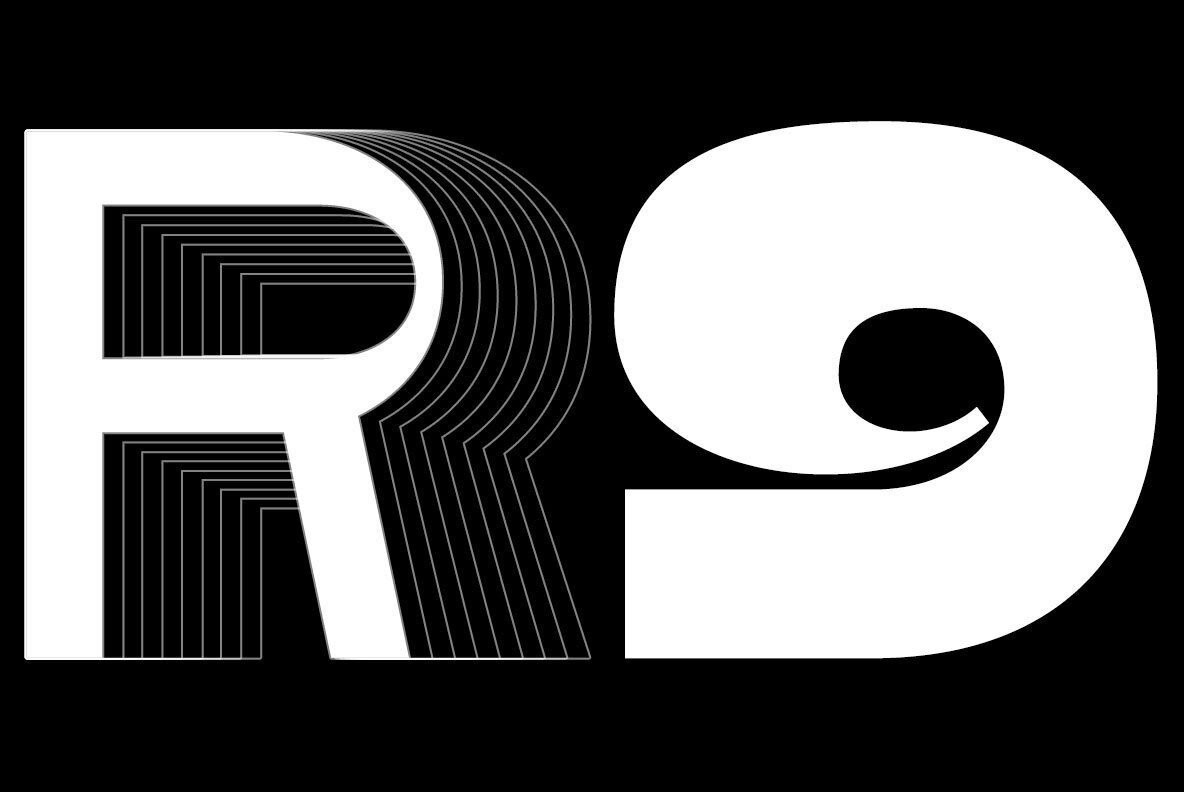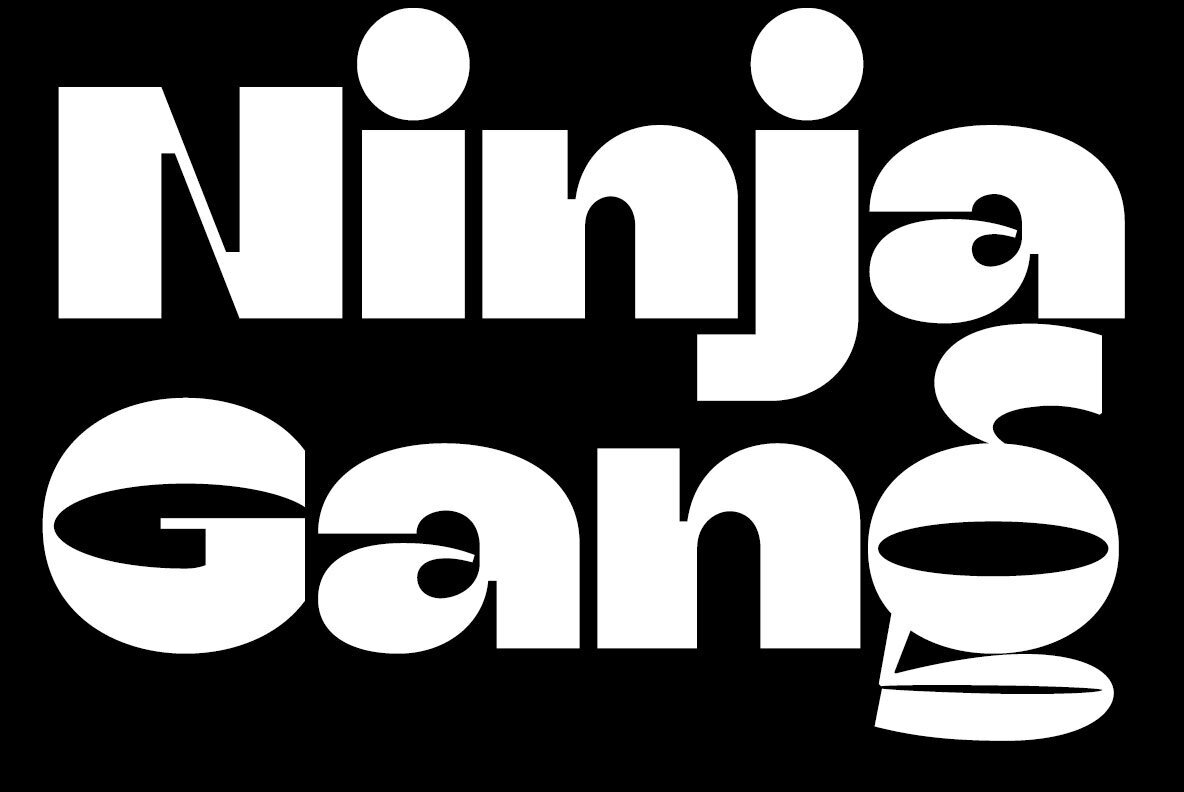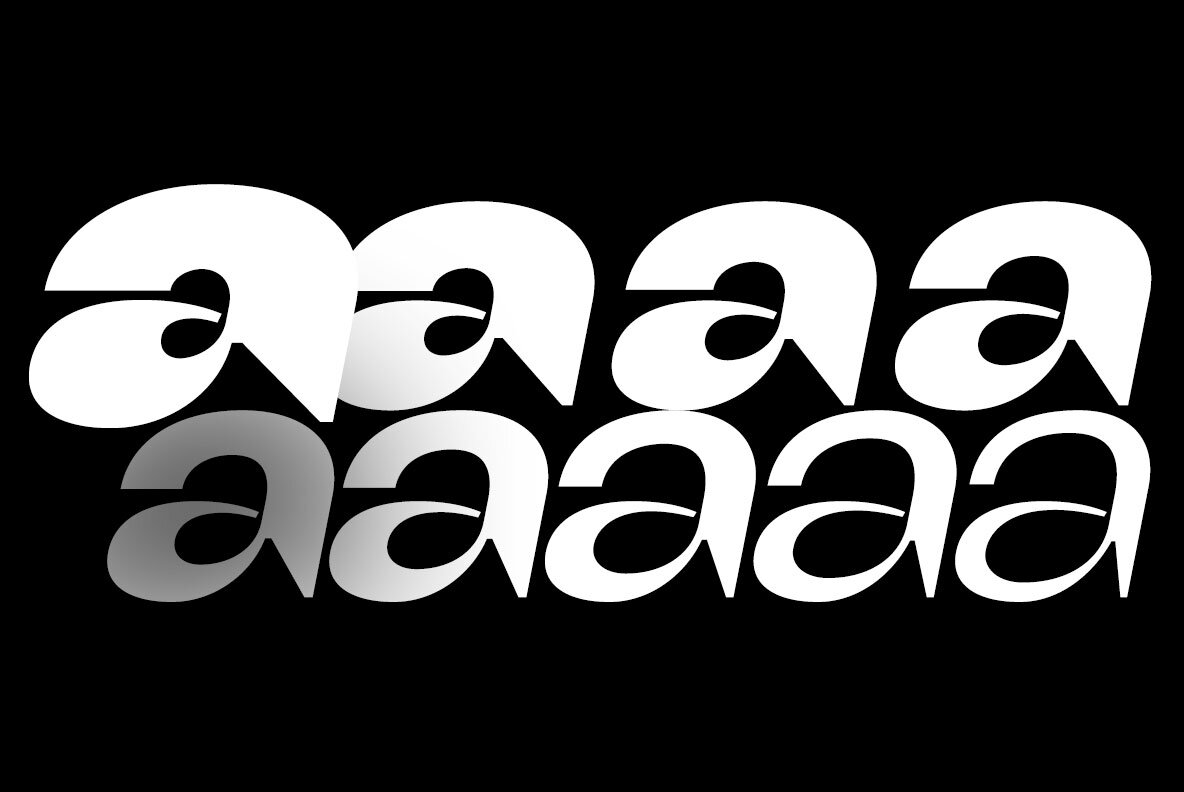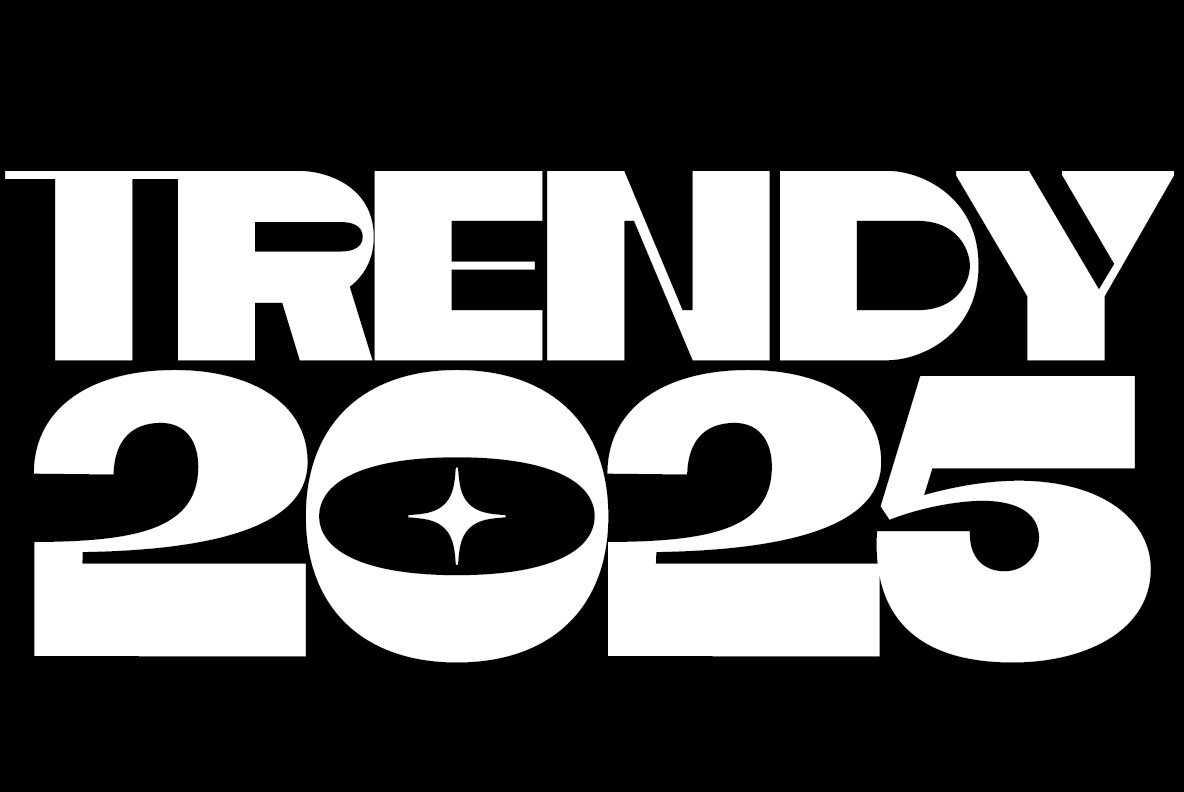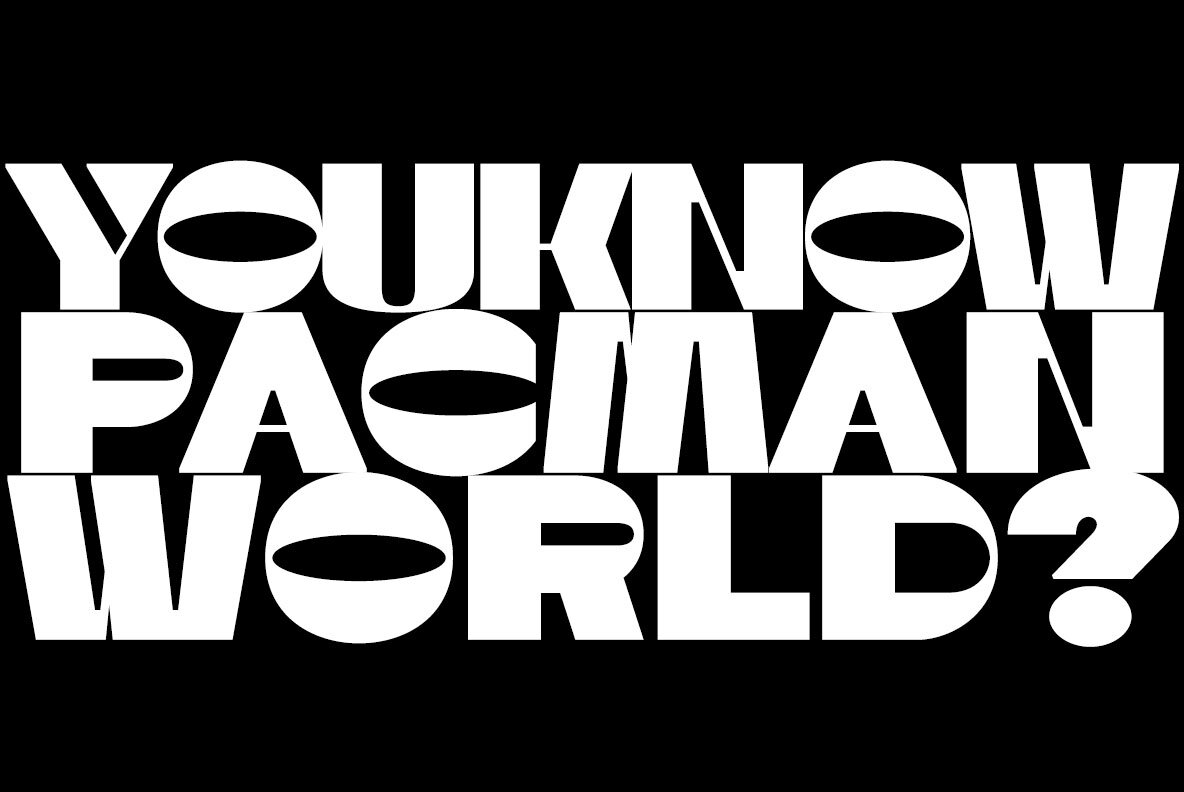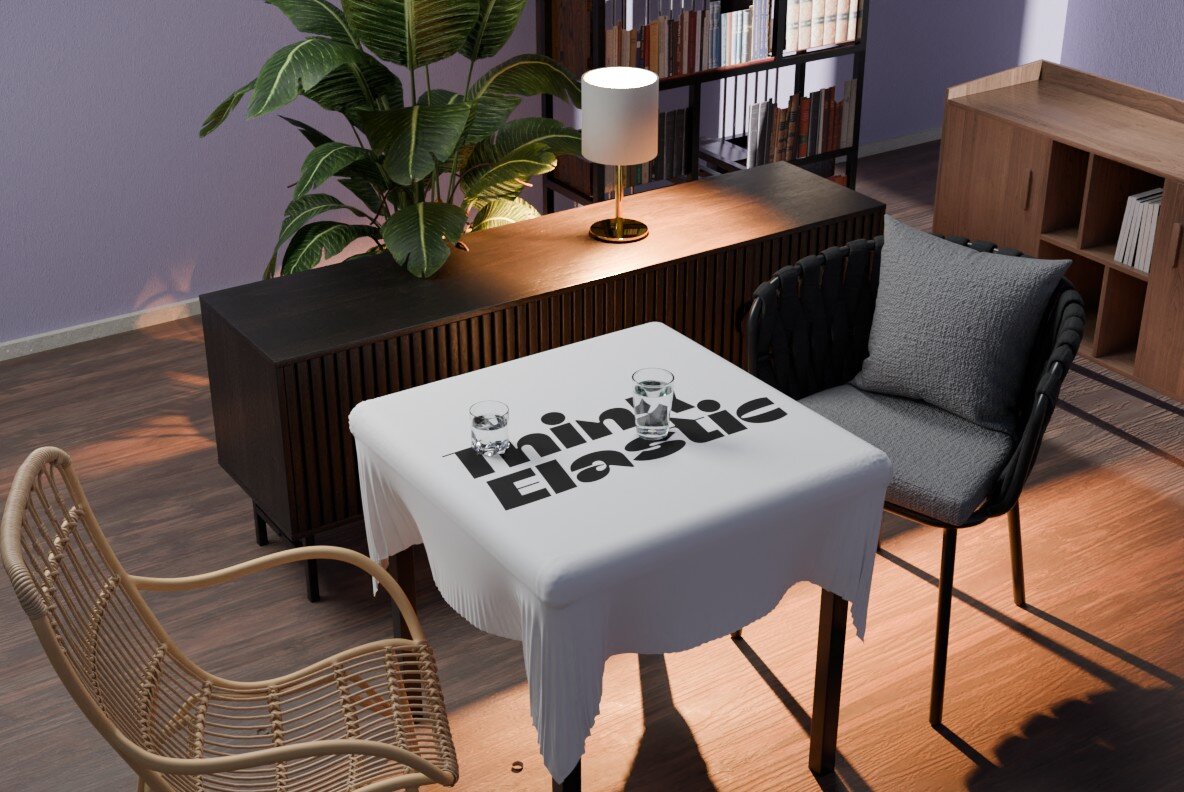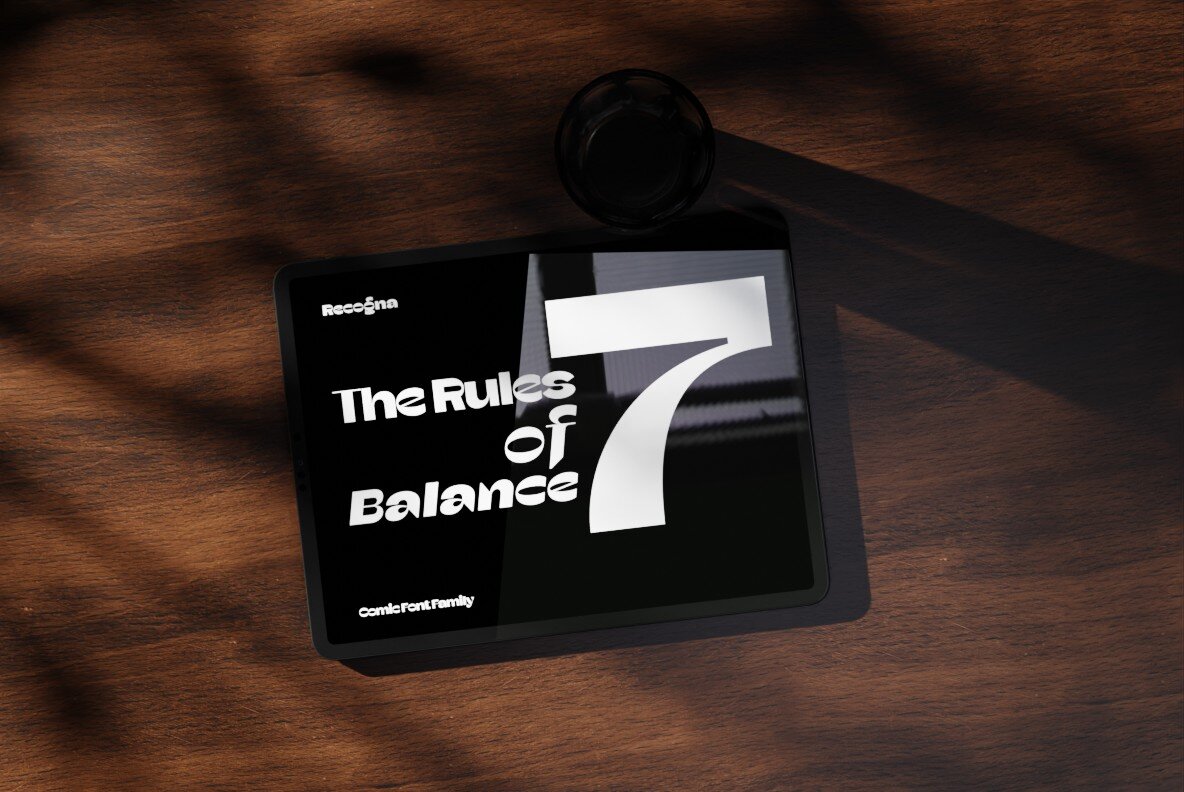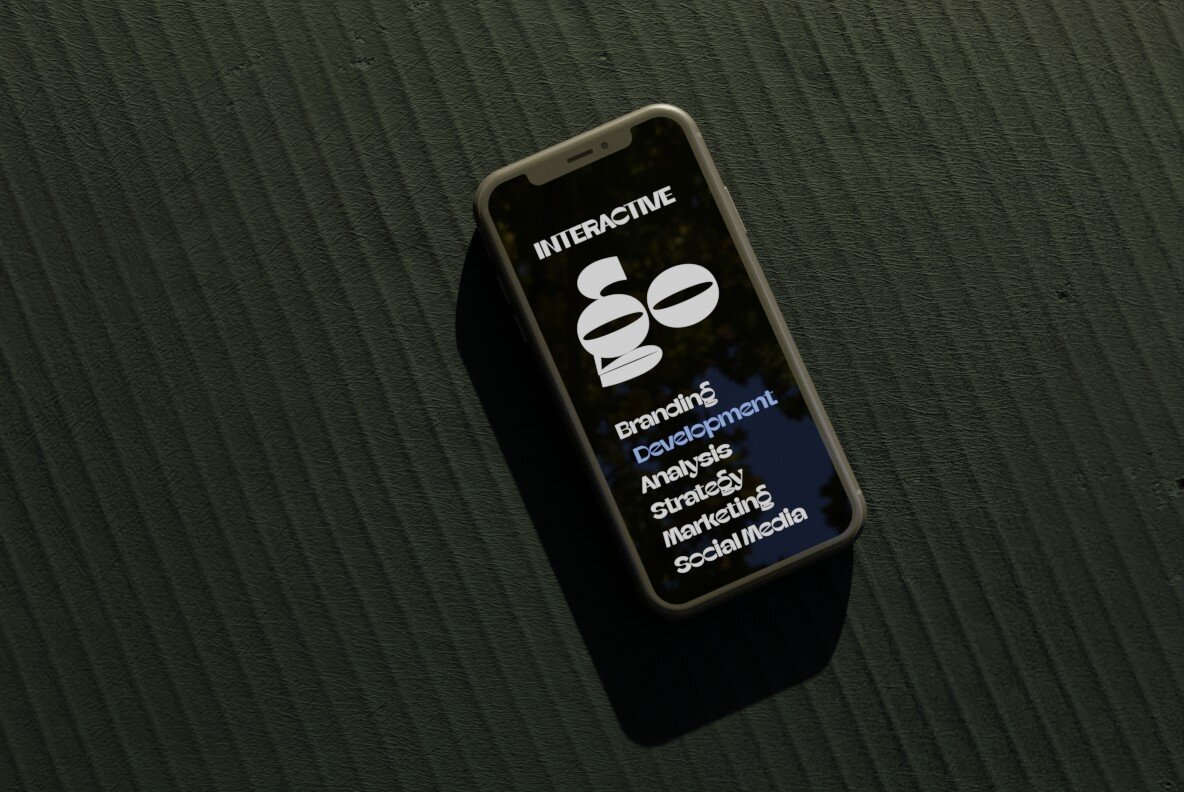
Recogna showcases a particularly chunky and inspires individuality in styles that come across in a variety of bandwidths.
It is comic, bold and emphatic. Designers can clearly express the intentions they want to convey, and customers can perceive them sincerely.
It will also be a great visual solution for promoting various consumer goods such as games, entertainment, gifts, and food and beverages.
The contrast structure of "o, e, c, b, d, g, p, and q" is designed differently from other glyphs, and through them, the overall balance and creative individuality are maintained.